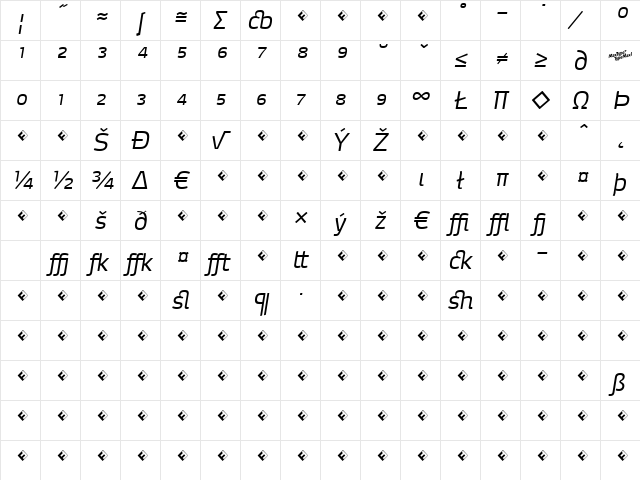
MaxDemiSerif-LightItalicExp Regular Font Preview
| Foundry | FontShop International |
| Designer | Morten Rostgaard Olsen |
Design Context for MaxDemiSerif-LightItalicExp Typeface
MaxDemiSerif-LightItalicExp brings classic typographic sensibility to the table — its serifs and measured letterforms reflect centuries of print heritage. The dynamic lean of this cut emphasises speed and emphasis in any layout. Its slender proportions lend an understated elegance to any composition.
Pro Tip: Set MaxDemiSerif-LightItalicExp at slightly larger body copy sizes than you would a regular-weight serif to compensate for its delicate stroke contrast.